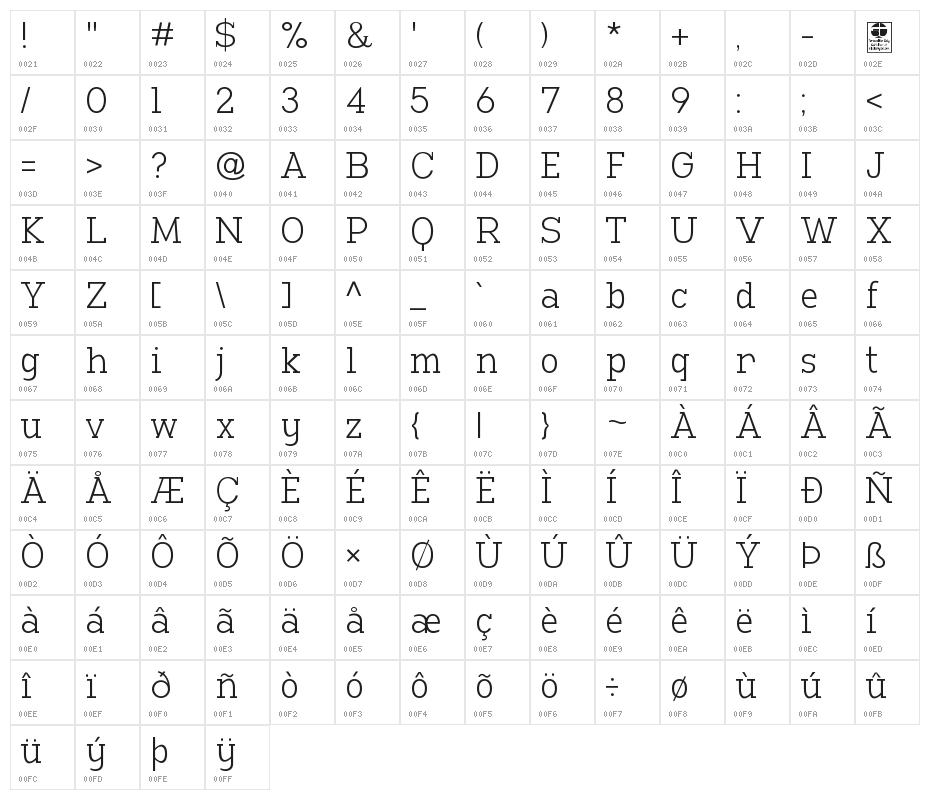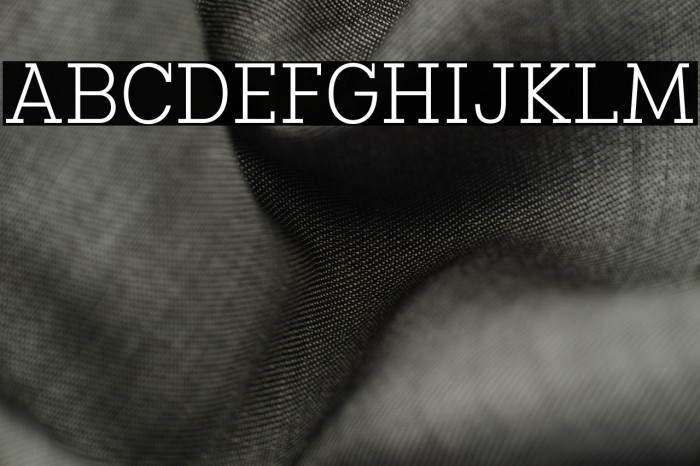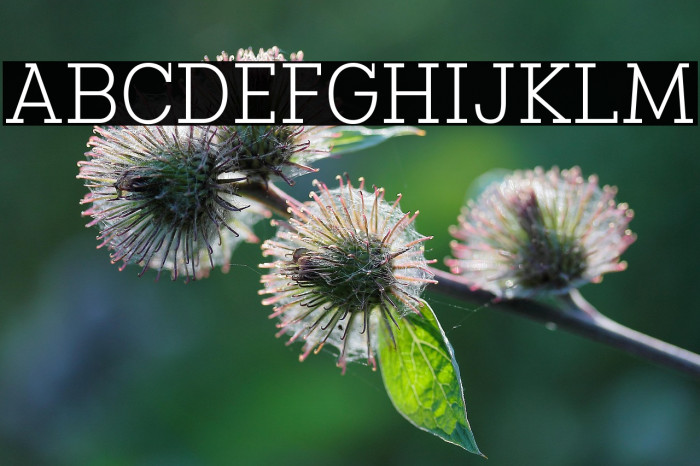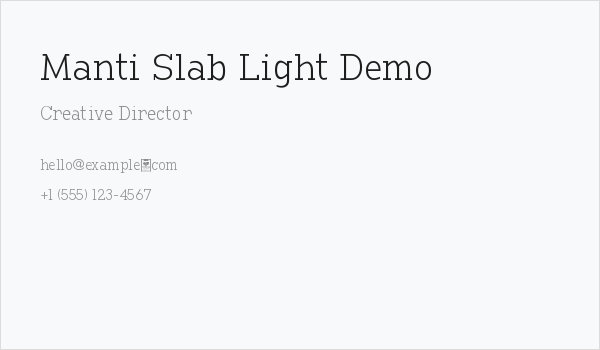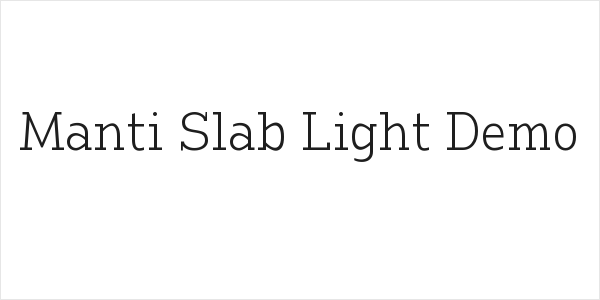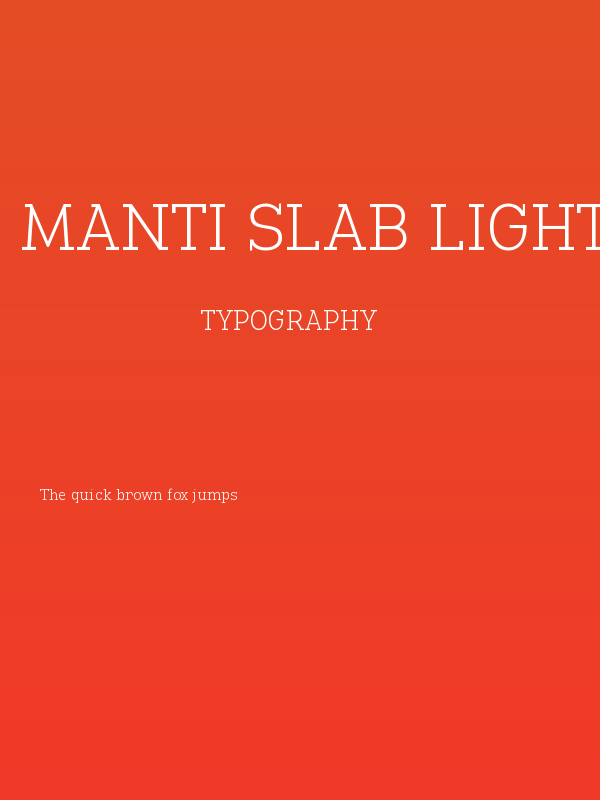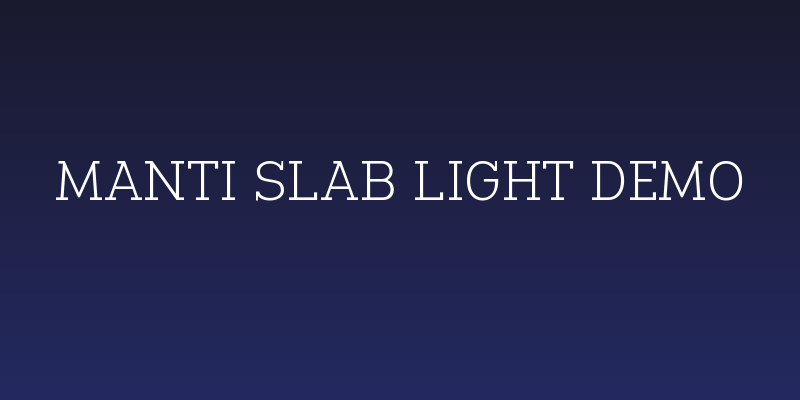
Manti Slab Light Demo Font
Manti Slab Light Demo Description
This font features a clean and modern slab serif design, characterized by its geometric shapes and consistent stroke widths. The uppercase letters are bold and assertive, while the lowercase letters maintain a balanced and approachable feel. The numerals are clear and legible, making them suitable for various applications. Special characters are well-defined, enhancing the font's versatility. Its overall appearance is both professional and stylish, making it ideal for contemporary design projects.